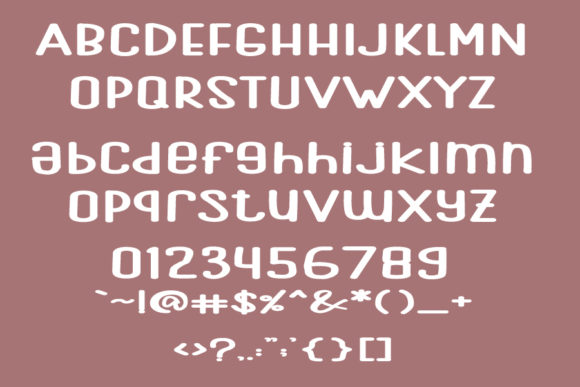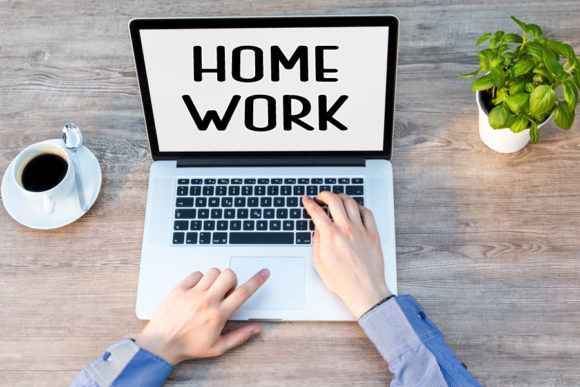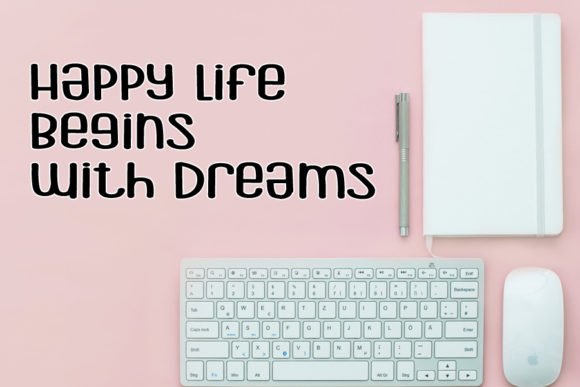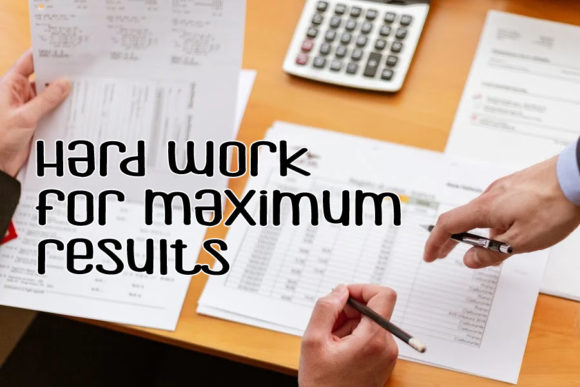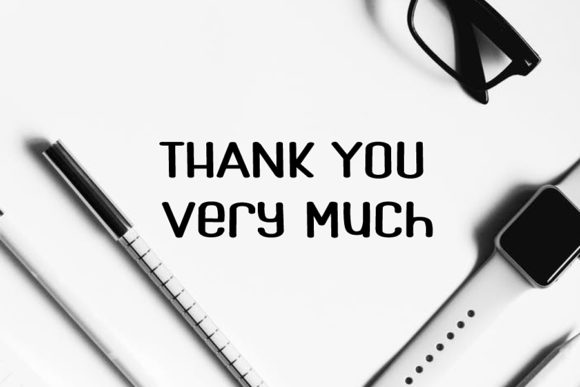
Introduction to Luxury Villa Font
Luxury Villa is a bold, simple and clean lettered display font.
Add this font to your creative ideas and notice how it will make them stand out .
Key Features of Luxury Villa Font
Why Choose Luxury Villa Font?
Luxury Villa Font offers exceptional quality and versatility, making it a valuable addition to your design toolkit. Whether you’re creating for personal projects or commercial use, Luxury Villa Font delivers professional results.